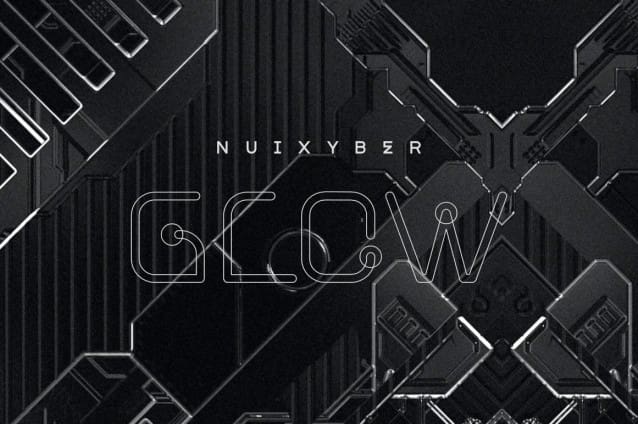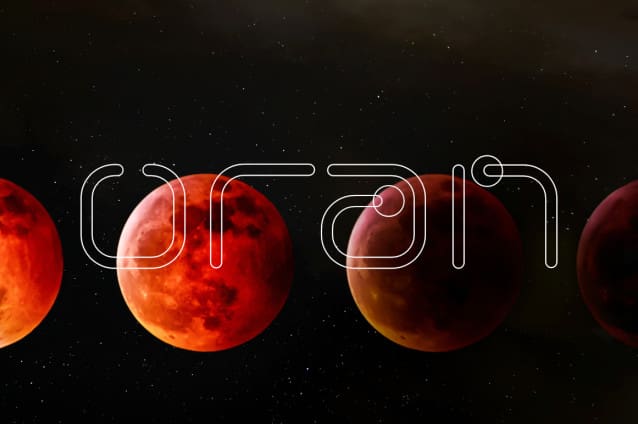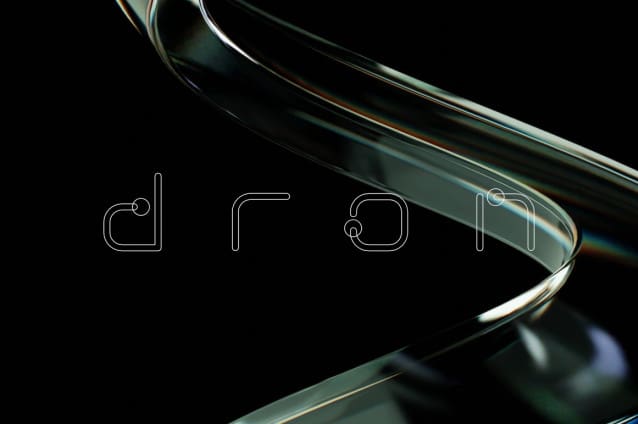
Nuixyber Glow Font
Nuixyber Glow Font is a sleek and futuristic display font inspired by circuit board patterns. It features sharp, angular lines reminiscent of electronic pathways. with subtle circuit-like elements integrated into each character for a high-tech vibe.